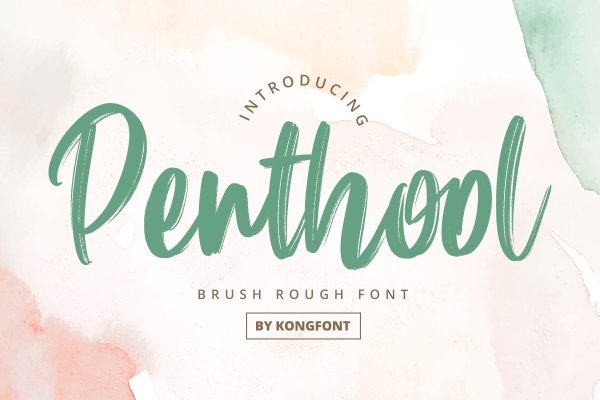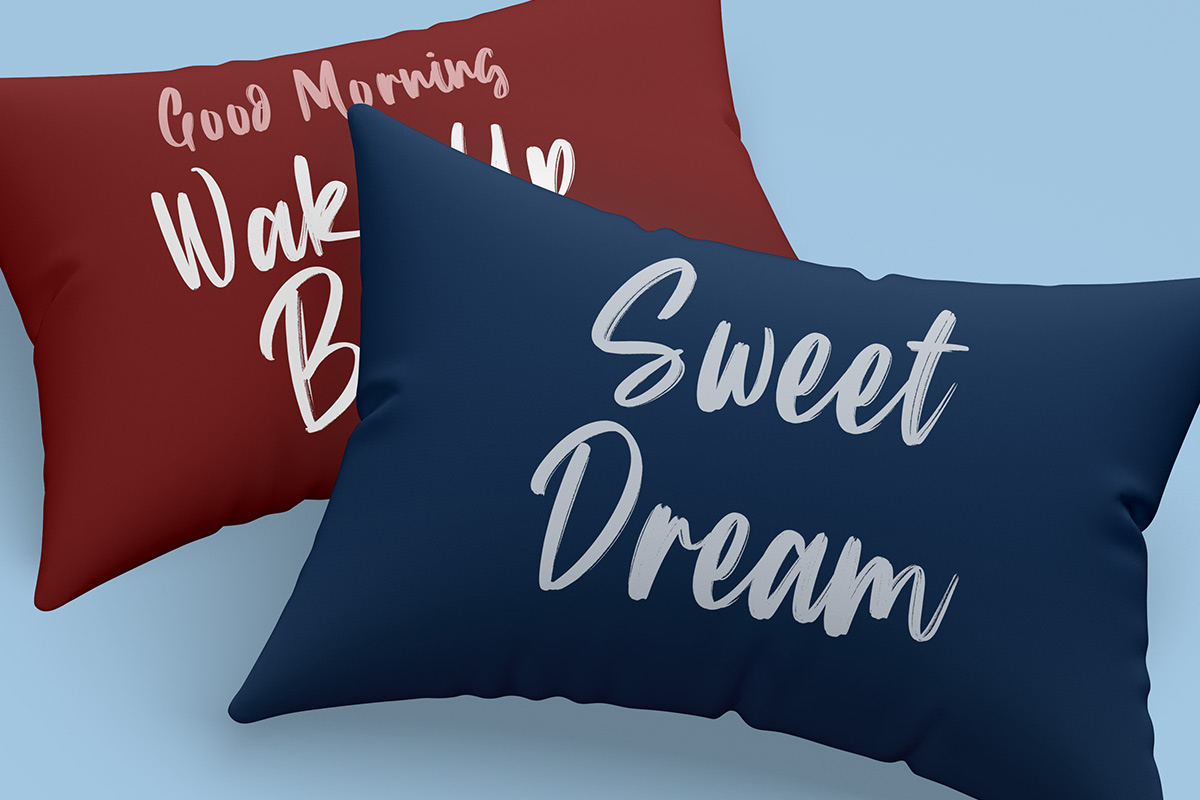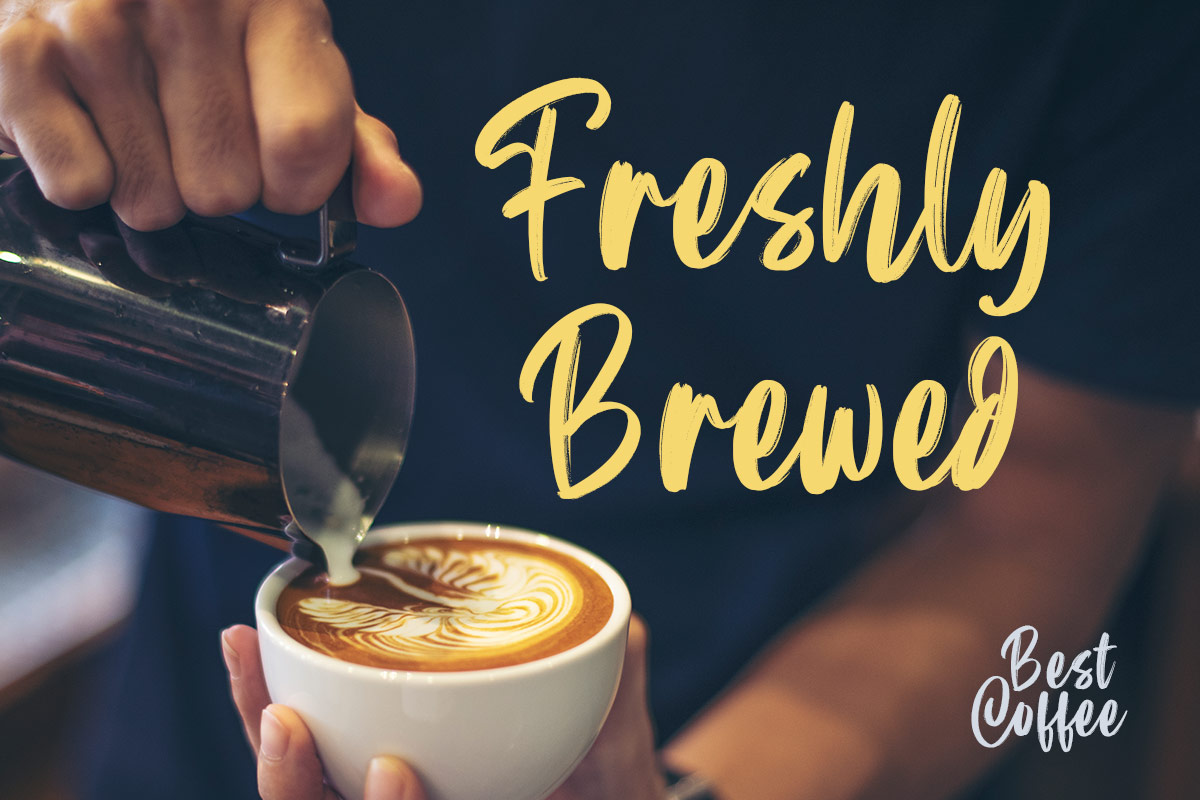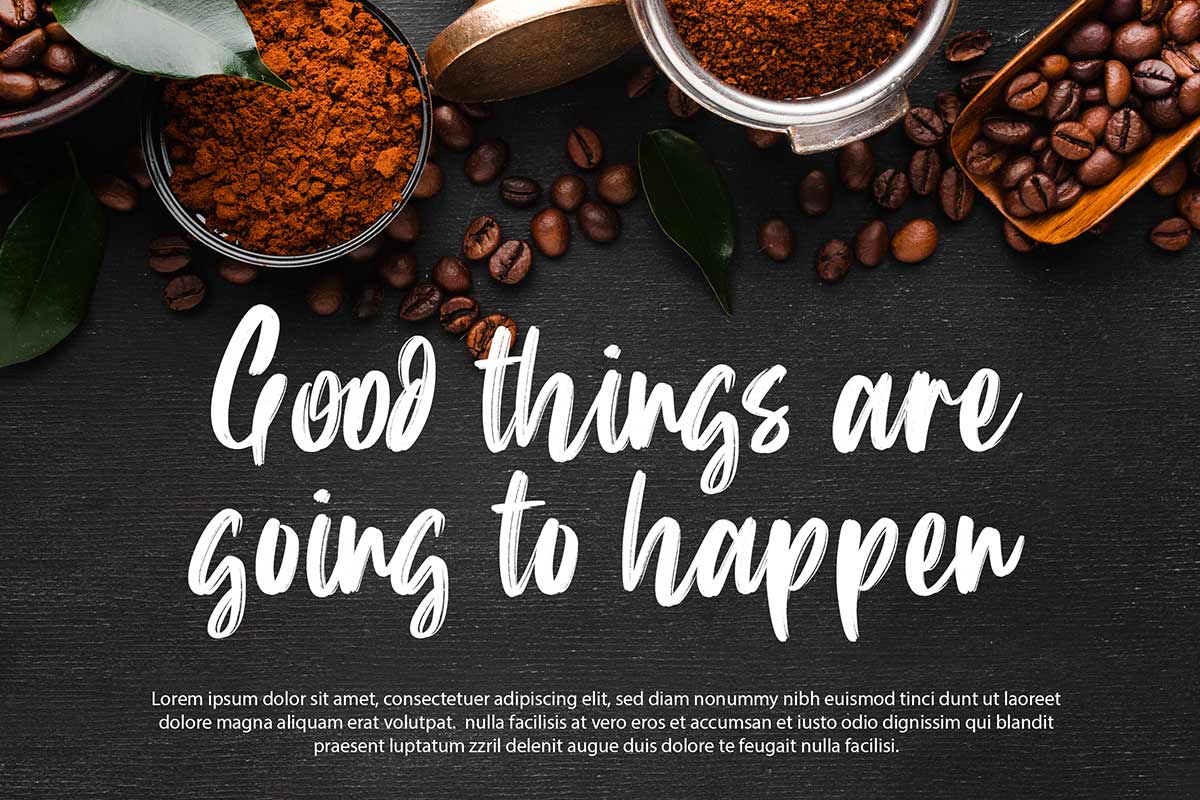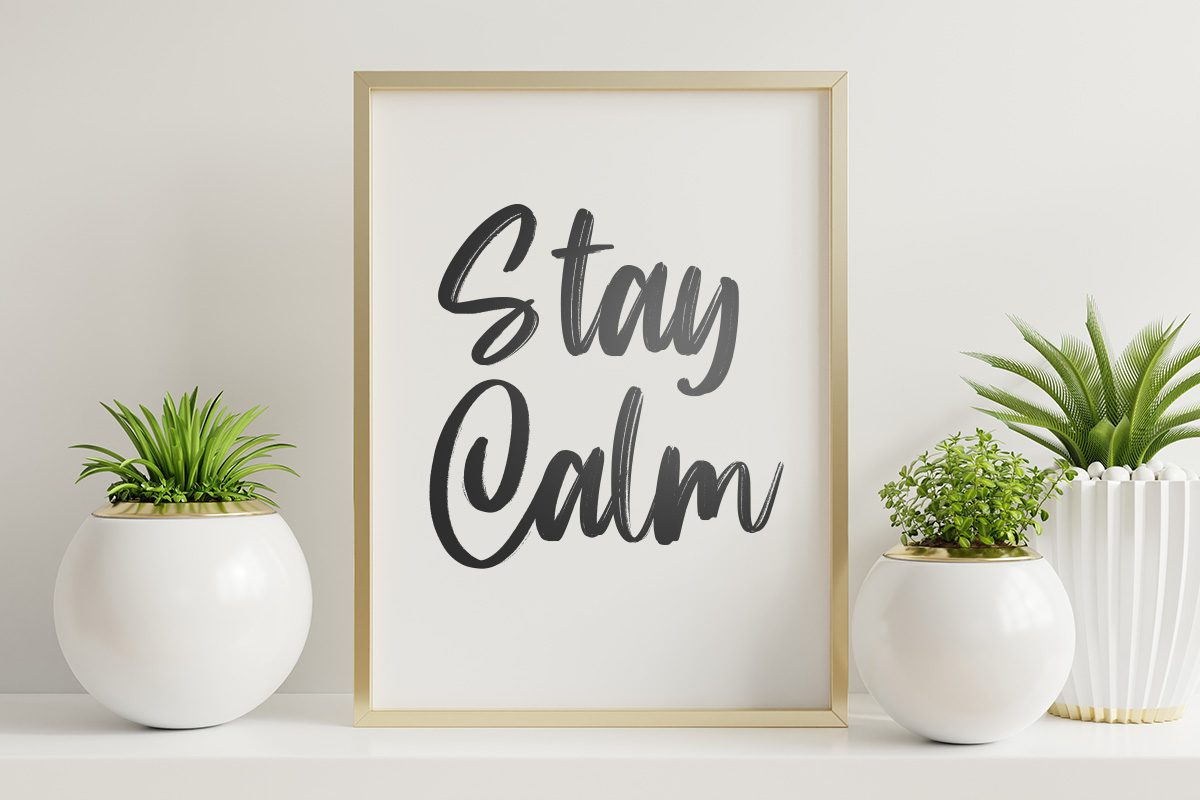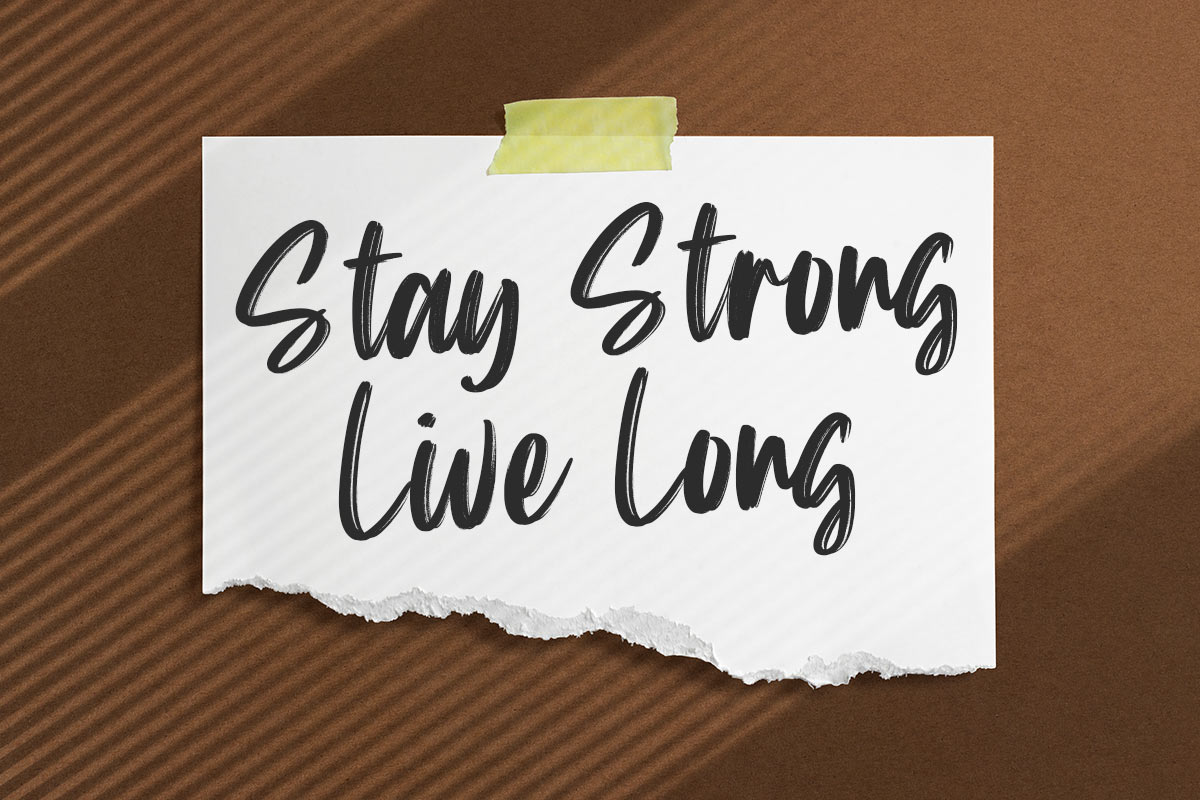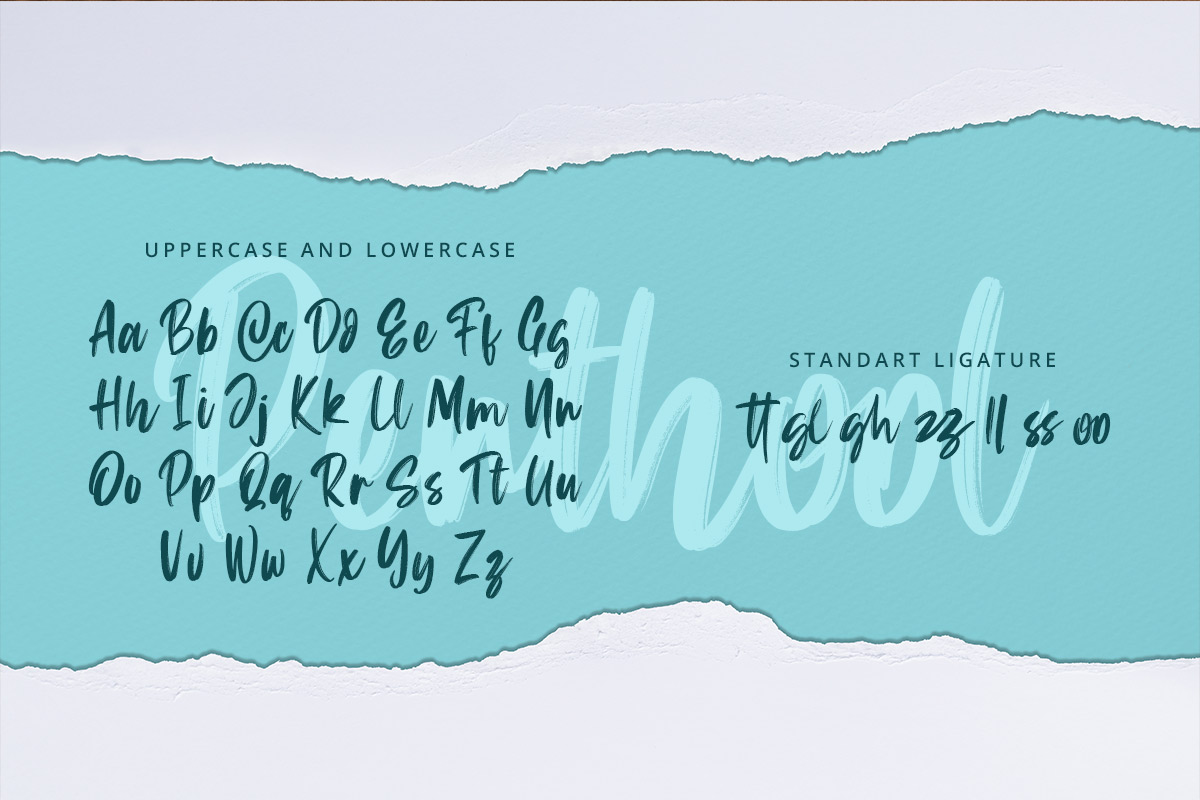
Penthool Brush Font Handwritten Brush Font, Penthool Brush Font is a brush font that has an elegant appearance many people liked. For Penthool Brush Font, a brush pen is used to create it, so the beauty shines through and is very real. The brush used in this font is medium-tipped so that the resulting strokes are curved and continuous. This typeface is perfect for use at formal events like weddings, graduation days, or gender parties and baby showers. You can also use it on invitations, letters, souvenirs, or thank you cards. Penthool Brush Font will give you a simple yet beautiful appeal. For other formal events like an art exhibition, you can use our Penthool Brush Font on show titles, team shirts, signage, and other items. Combined with the proper theme, supporting images, and atmosphere, the beauty of Penthool Brush Font will shine like the sun shining in a room. Our brush fonts collection is used as Figma Fonts, Canva Fonts, Freepik Fonts, and Adobe Fonts. They also work as Windows Fonts and Apple Fonts. For your social media needs, you can use and install fonts in our Script & Signature font collection to use as Instagram Fonts, Facebook Fonts, and Twitter Fonts.